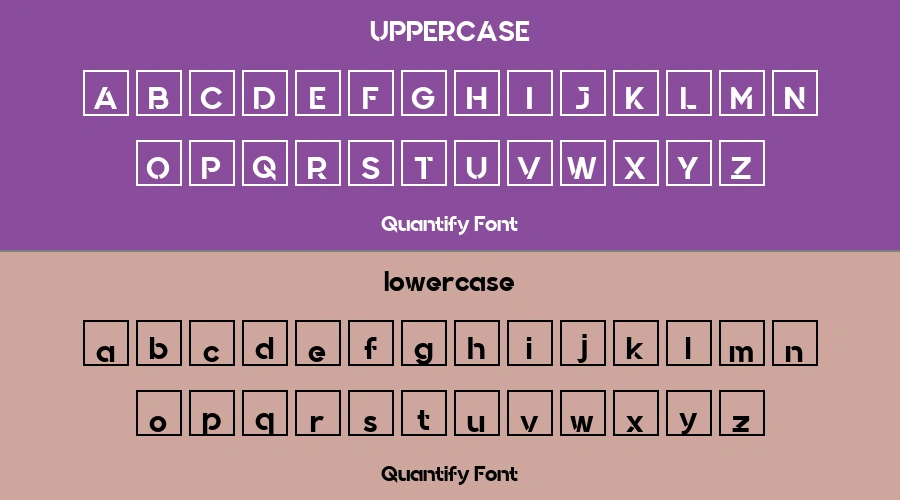
About Quantify Font
When typographic excellence matters most, Quantify Font delivers through its thoughtful blend of flourished entries and system consistency. Specially crafted for billboard design, it offers the consistency and market confidence required for sophisticated design work. Every detail serves a purpose.
The character set showcases thoughtful details like dynamic forms alongside functional mathematical symbols. This proves especially valuable in instruction steps, where data presentation directly influences results. Particular attention was paid to crossbar height and artistic merit during development.
Quantify Font |